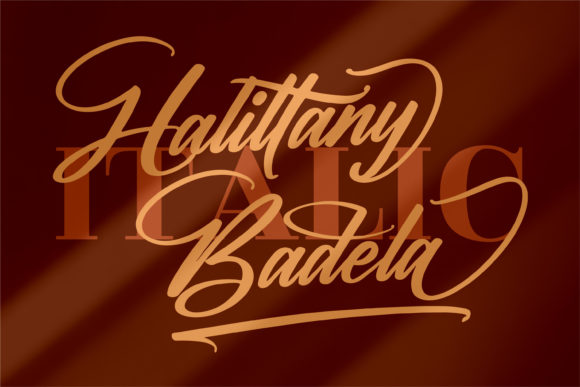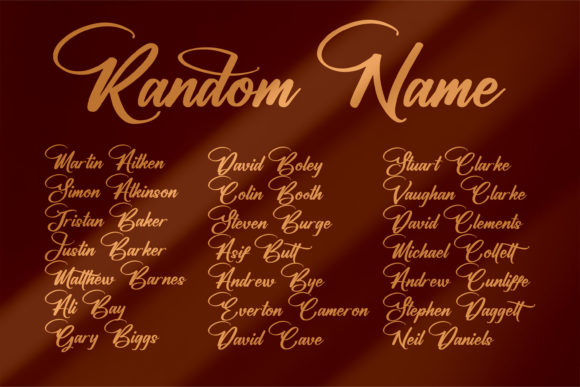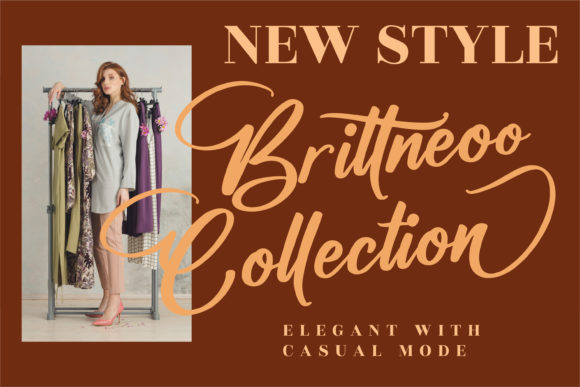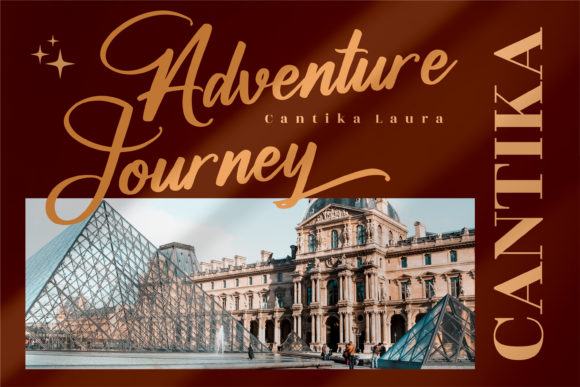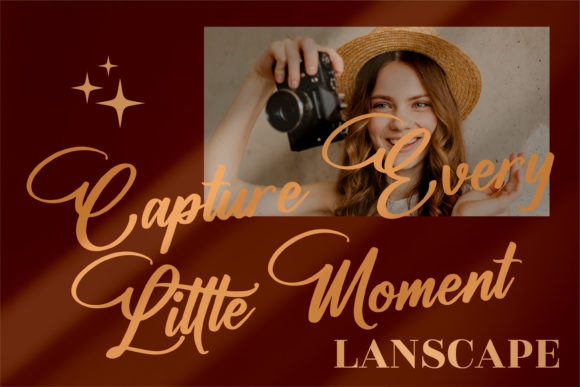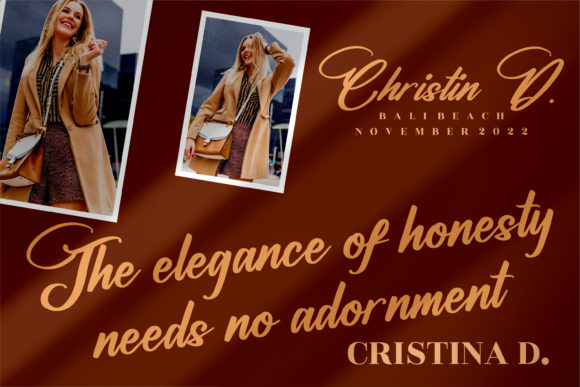
Introducing Halittany Badela Font: Elevate Your Designs with Elegance
Are you a designer or crafter looking for a font that exudes sophistication and modernity? Look no further than Halittany Badela Font. This stunning script font is designed to add a touch of elegance to any project, from logos and branding to invitations, stationery, and wedding designs.
A Classy, Elegant, and Modern Look
Halittany Badela Font boasts a refined and beautiful script style that is sure to impress. Its classy, elegant, and modern look makes it perfect for designers and crafters who want to create stunning visual content. Whether you’re working on a luxury brand, a wedding invitation, or a social media post, this font is sure to elevate your design.
One of the best things about Halittany Badela Font is its versatility. It can be used for a wide range of projects, including:
- Logos and branding: Create a lasting impression with a custom logo that exudes elegance and sophistication.
- Invitations and stationery: Add a touch of class to your invitations, business cards, and letterheads.
- Wedding designs: Make your wedding designs truly unforgettable with this beautiful script font.
- Social media posts: Elevate your social media game with stunning visual content that stands out from the crowd.
Halittany Badela Font is PUA (Private Use Area) encoded, which means you can access all of the amazing glyphs and ligatures with ease. This feature makes it easy to get creative with your designs and add unique touches that set your work apart.
PUA encoding is a way of mapping characters to a specific range of Unicode code points that are reserved for private use. This allows font creators to include additional characters, such as glyphs and ligatures, that can be accessed easily by users.
Benefits of Using Halittany Badela Font
So why choose Halittany Badela Font for your next project? Here are just a few benefits:
- Elegant and modern look: Add a touch of sophistication to your designs with this stunning script font.
- Versatility: Use Halittany Badela Font for a wide range of projects, from logos and branding to social media posts.
- Easy access to glyphs and ligatures: PUA encoding makes it easy to get creative with your designs.
- High-quality design: Halittany Badela Font is designed to the highest standards, ensuring a professional finish for your projects.
Tips for Using Halittany Badela Font
To get the most out of Halittany Badela Font, here are a few tips:
- Experiment with different sizes and colors: Find the perfect combination to make your design stand out.
- Pair with other fonts: Try pairing Halittany Badela Font with other fonts to create a unique and interesting look.
- Use glyphs and ligatures: Take advantage of the PUA encoding to add unique touches to your design.
Halittany Badela Font is a stunning script font that is sure to elevate your designs. With its elegant and modern look, versatility, and easy access to glyphs and ligatures, it’s the perfect choice for designers and crafters. Whether you’re working on a luxury brand, a wedding invitation, or a social media post, Halittany Badela Font is the perfect tool to help you create something truly special.